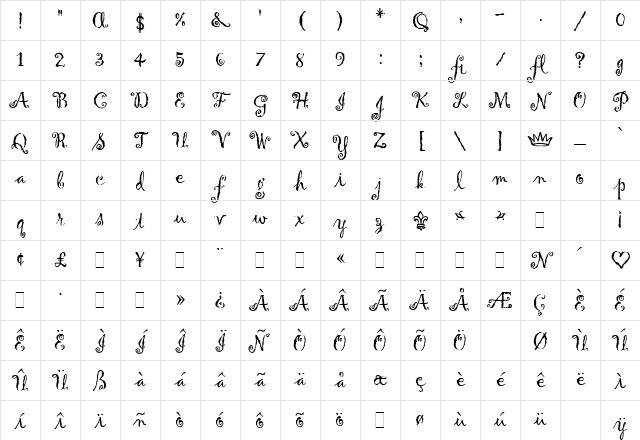
Gigi LET Plain Free Font
Gigi LET Plain
Design Context for Gigi LET
Gigi LET is a composed and adaptable typeface that performs quietly and consistently across a wide range of design contexts.